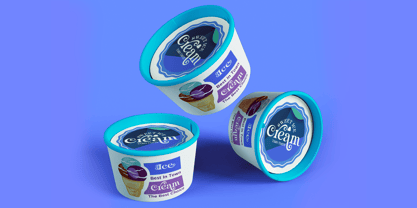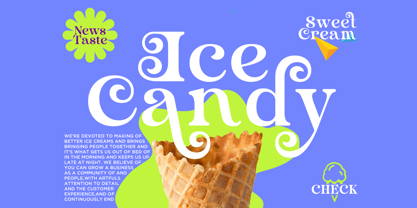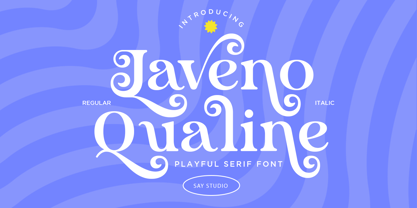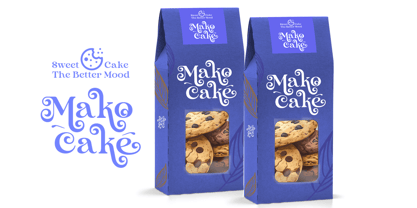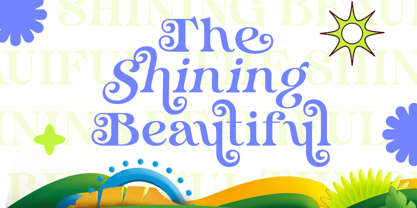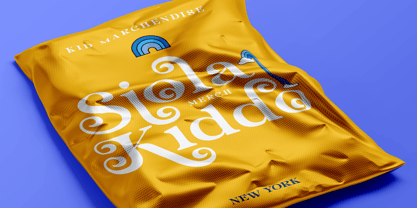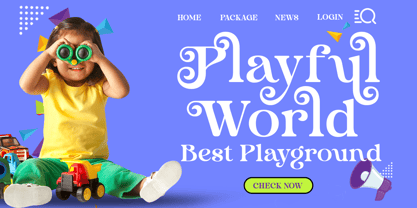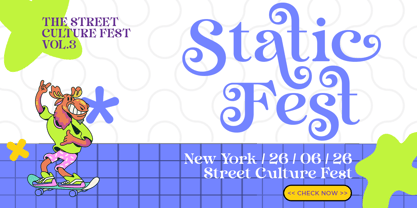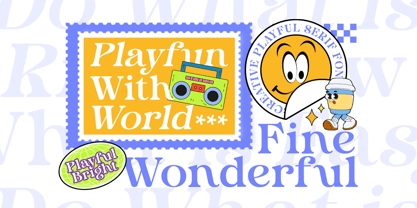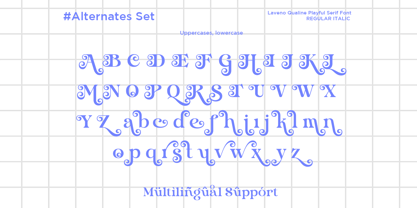
Laveno Qauline
Die Schriftfamilie Laveno Qauline wurde von Mussyayin entworfen und von Say Studio veröffentlicht. Laveno Qauline enthält 2 Stile und Familienpaketoptionen. Mehr über diese Familie
Laveno Qualine is a playful serif font with elegant swashes and decorative curves. Designed to bring joy and personality, this font works beautifully for headlines, logos, branding, packaging, invitations, editorial layouts, and creative typography projects. Its unique character makes it perfect for designs that need a charming, expressive, and stylish touch.
Regular and Italic
• Stylistic Alternates
• Uppercase and Lowercase
• Number, Symbol, and Punctuation
• Multilngual Support